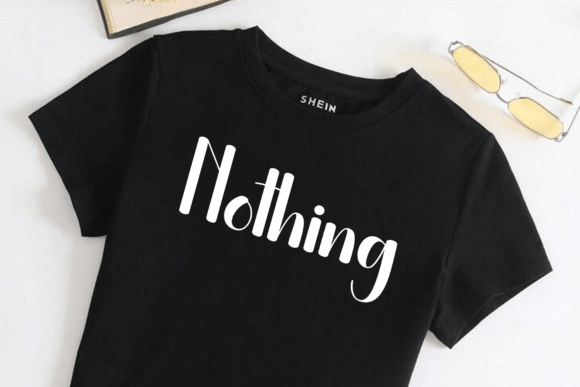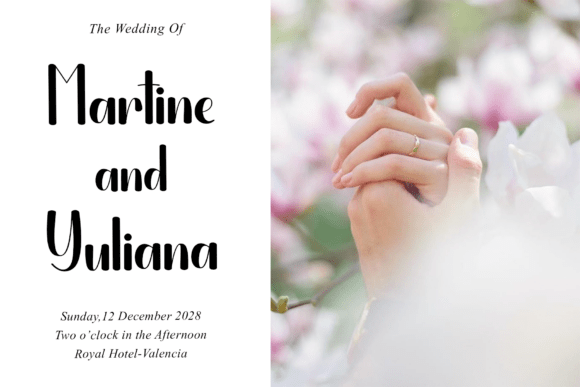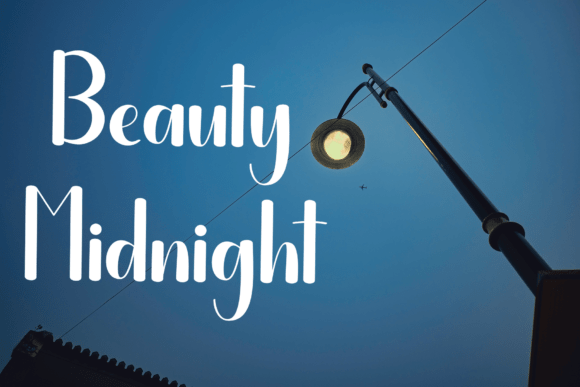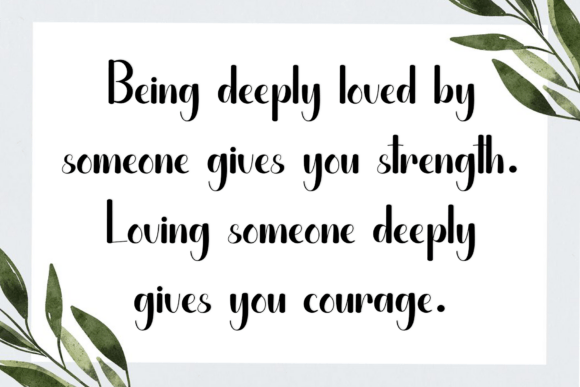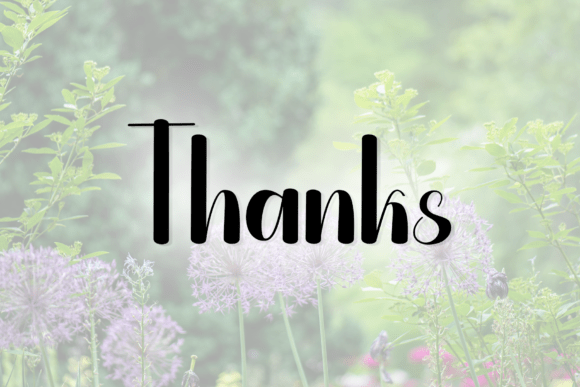
Gardening Font: Elevate Your Designs with Elegance and Sophistication
Are you a designer or crafter looking for a font that exudes luxury and sophistication? Look no further than the Gardening Font. This elegant and fluid handwritten script font is perfect for those who want to add a touch of modern refinement to their designs. In this article, we’ll explore the features and benefits of the Gardening Font, and how it can elevate your designs to the next level.
What is Gardening Font?
Gardening Font is a beautifully crafted handwritten script font that captures the essence of a modern, sophisticated typeface. Its elegant and fluid strokes make it perfect for a variety of design applications, from luxury wedding stationery to high-end editorial signatures. The font’s unique and refined aesthetic is sure to impress your clients and elevate your designs.
Key Features of Gardening Font
- Elegant and Fluid Strokes: The Gardening Font features elegant and fluid strokes that give it a sophisticated and refined look.
- Modern and Sophisticated: The font’s modern and sophisticated aesthetic makes it perfect for luxury wedding stationery, intimate event branding, and high-end editorial signatures.
- Handwritten Script: The Gardening Font is a handwritten script font, giving it a personal and unique touch.
- Versatile: The font is versatile and can be used for a variety of design applications, from digital to print.
Use Cases for Gardening Font
The Gardening Font is perfect for a variety of design applications, including:
- Luxury Wedding Stationery: The font’s elegant and sophisticated aesthetic makes it perfect for luxury wedding stationery, including invitations, save-the-dates, and wedding programs.
- Intimate Event Branding: The Gardening Font is also perfect for intimate event branding, including baby showers, bridal showers, and anniversaries.
- High-End Editorial Signatures: The font’s refined aesthetic makes it perfect for high-end editorial signatures, including fashion and lifestyle publications.
- Sophisticated Lifestyle Photography Overlays: The Gardening Font can also be used to add a touch of elegance and sophistication to lifestyle photography overlays.
Benefits of Using Gardening Font
Using the Gardening Font in your designs offers a range of benefits, including:
- Instant Elegance: The font’s elegant and sophisticated aesthetic instantly elevates your designs, making them look more refined and luxurious.
- Unique and Personal Touch: The Gardening Font’s handwritten script gives your designs a unique and personal touch, setting them apart from more traditional fonts.
- Versatility: The font’s versatility means you can use it for a range of design applications, from digital to print.
- Time-Saving: Using a pre-designed font like Gardening Font saves you time and effort, as you don’t have to spend hours designing a font from scratch.
Tips for Using Gardening Font
To get the most out of the Gardening Font, here are a few tips:
- Use it Sparingly: Use the Gardening Font sparingly to add a touch of elegance and sophistication to your designs.
- Pair it with Other Fonts: Pair the Gardening Font with other fonts to create a unique and visually appealing design.
In conclusion, the Gardening Font is a beautifully crafted handwritten script font that captures the essence of a modern, sophisticated typeface. Its elegant and fluid strokes make it perfect for a variety of design applications, from luxury wedding stationery to high-end editorial signatures. With its unique and refined aesthetic, the Gardening Font is sure to elevate your designs and impress your clients.